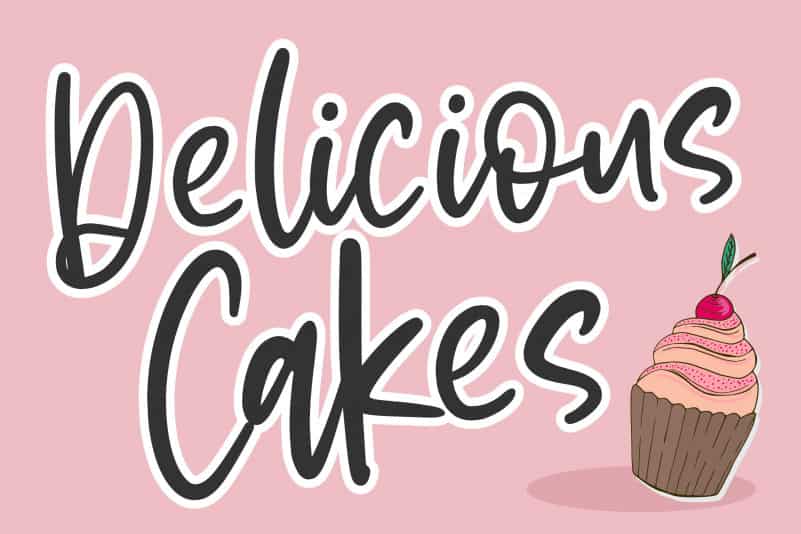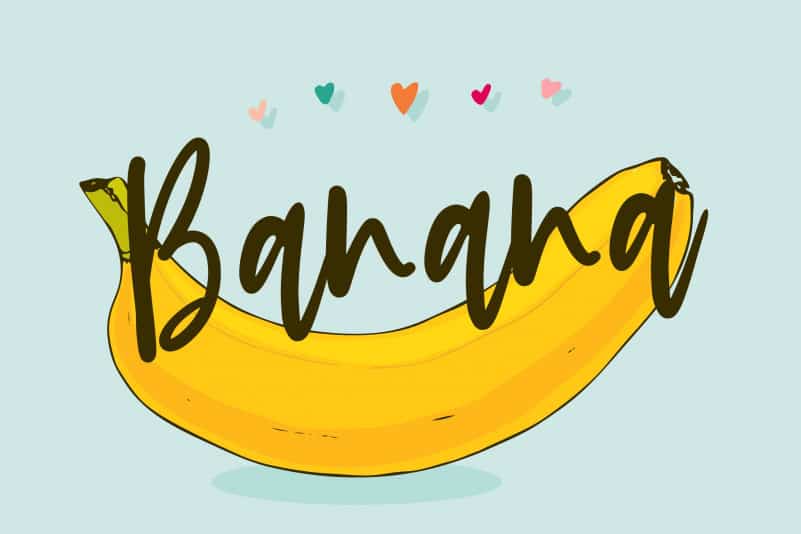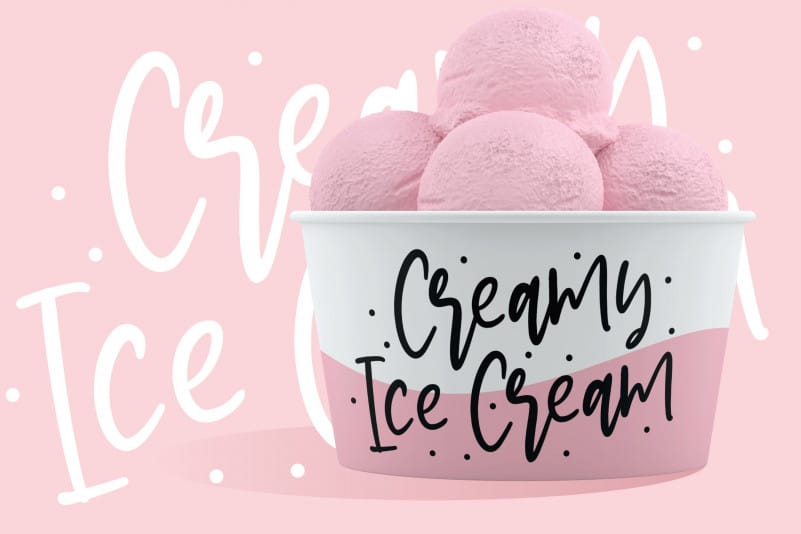
Magicpie Beautiful Calligraphy Font
Proudly Present, Magicpie Beautiful Calligraphy Font.
Magicpie is a Beautiful Calligraphy font.
Magicpie is perfect for product packaging, branding project, megazine, social media, wedding, or just used to express words above the background.